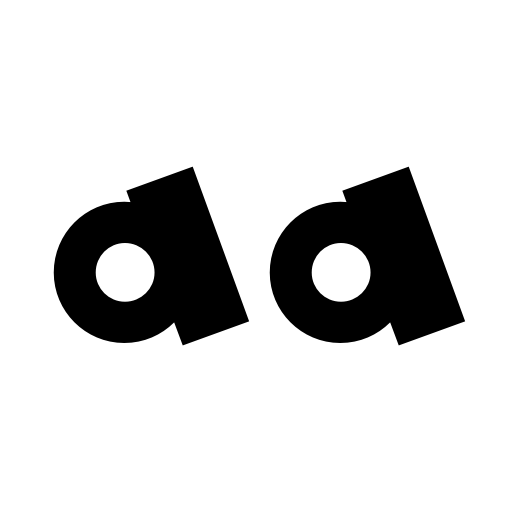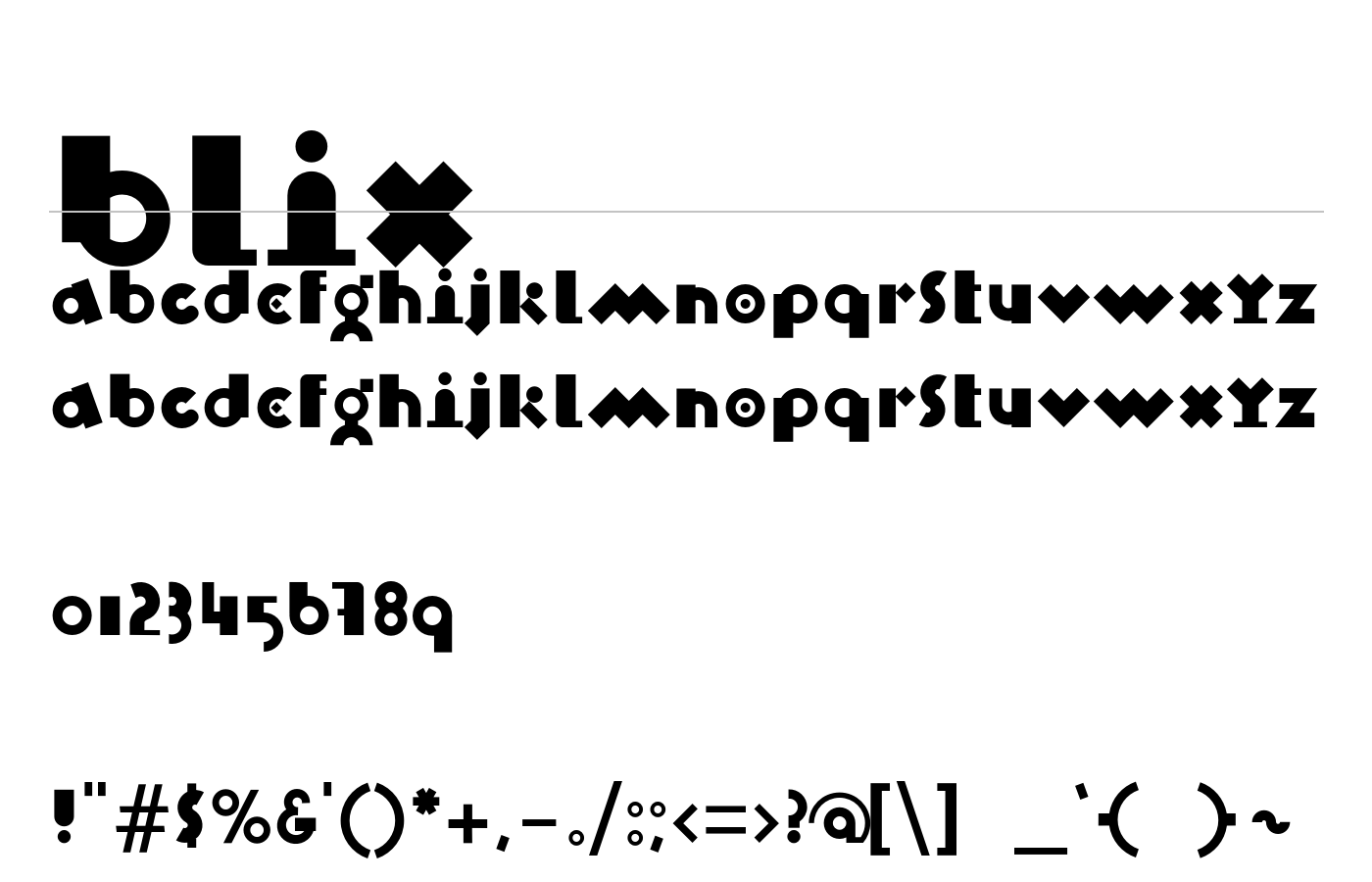
Blix is a bold, geometric sans serif font with a quirky and playful character, featuring strong, blocky shapes and unique angular details that give it a modern yet whimsical feel. Its solid weight and tight spacing make it ideal for attention-grabbing headlines, logos, and creative branding where personality and impact are key. This font works best in design projects that aim to stand out with a distinctive, fun style while maintaining clarity and strength.
Blix Font
About Blix Font
| Font family | Blix Font |
| Designer | Francois Bruel |